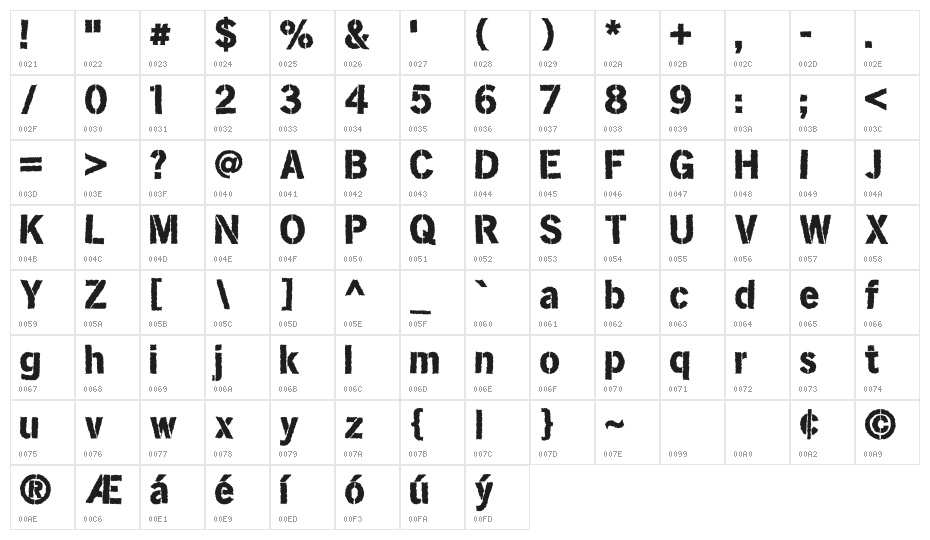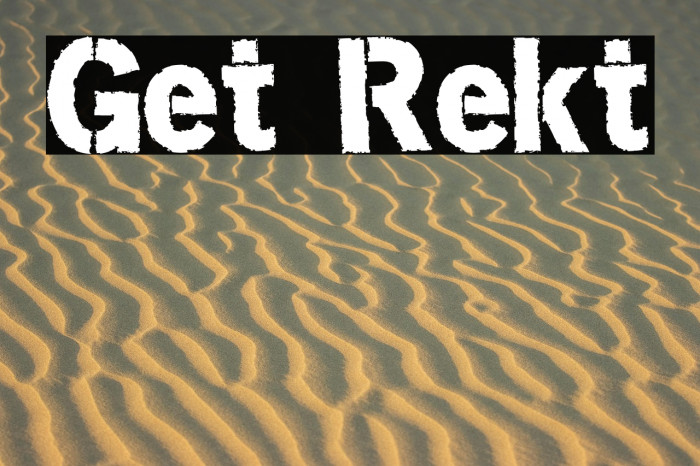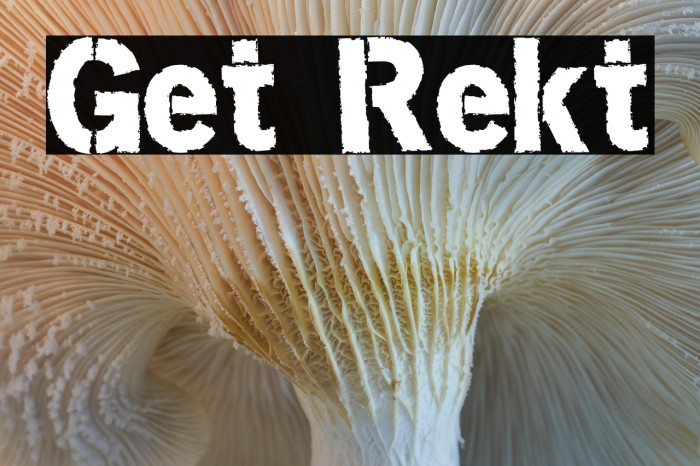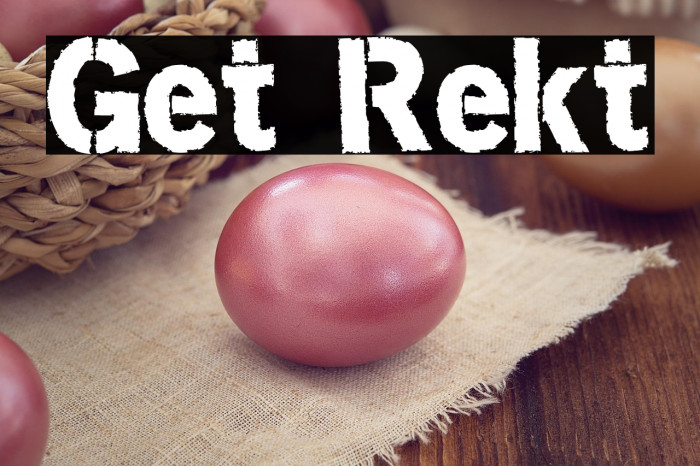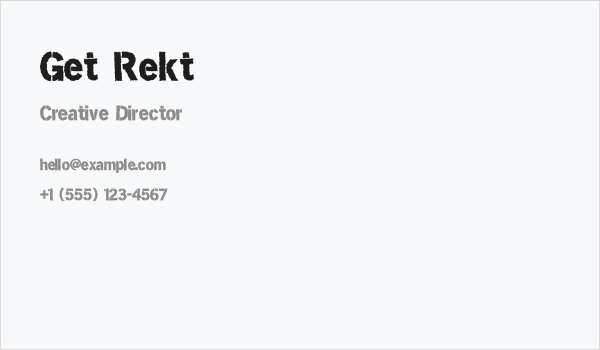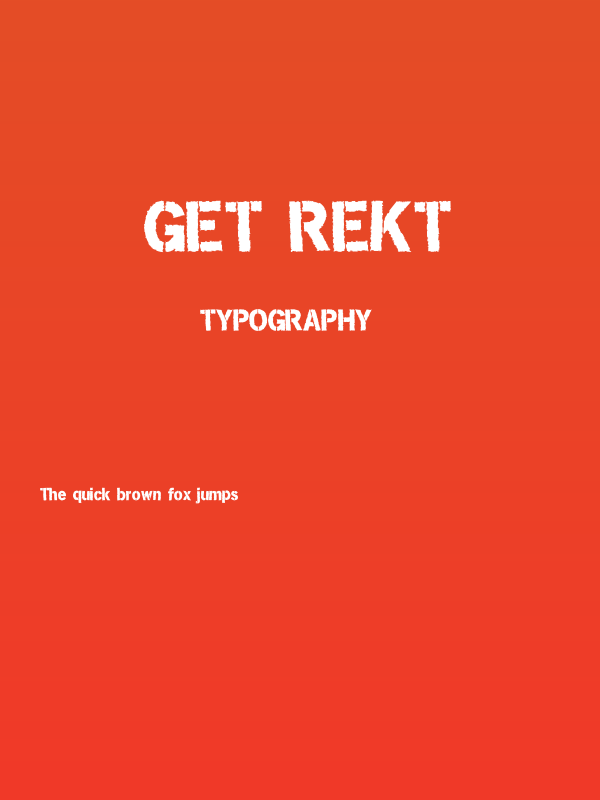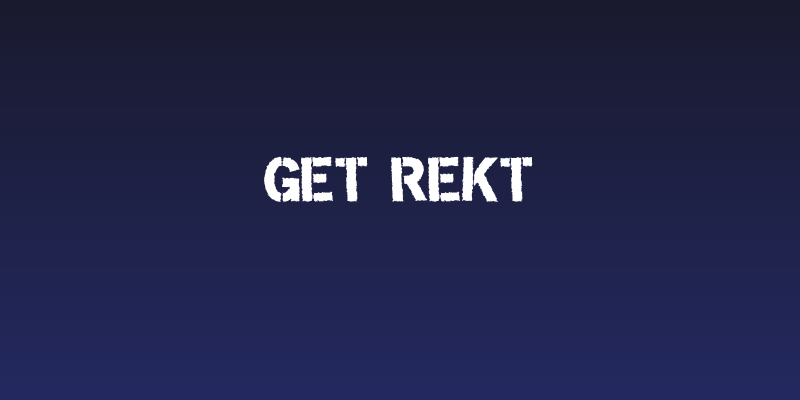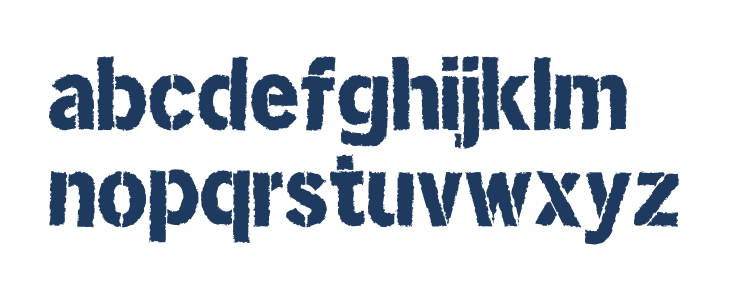
Get Rekt Font
Get Rekt Description
This font features a bold, distressed style with a textured, rough appearance reminiscent of stenciled or spray-painted letters. The uppercase and lowercase characters maintain a consistent weight, giving the font a strong and impactful presence. The numbers and special characters follow the same rugged aesthetic, making them suitable for designs that require a gritty, urban feel. The font's unique texture adds depth and character, making it stand out in any project.
Overall StyleUrban, Gritty, Textured
Use CaseHeadlines, Posters, Logos
Proposed ProjectsIdeal for street art designs, edgy posters, album covers, or any project needing a bold, gritty aesthetic.